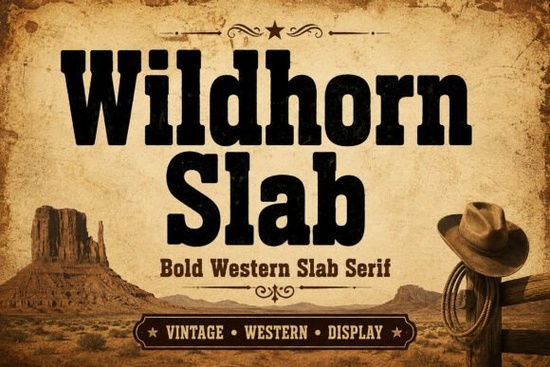
If you’re looking for a slab serif font that feels both authentic and ready for real-world use like on a whiskey bottle, coffee bag, or rustic apparel tag Wildhorn Slab Font is worth your attention. It’s not just another “vintage western” font with exaggerated flourishes. Instead, it’s carefully drawn with sturdy serifs, balanced weight, and consistent spacing so it holds up well at small sizes on packaging and reads clearly even in print.
What kind of projects does Wildhorn Slab work best for?
This font shines where character meets clarity. Think: craft brewery labels, small-batch coffee branding, handmade soap tags, vintage-style posters, or logotypes for local shops with a frontier or heritage vibe. Because it’s built as a true slab serif not a distressed novelty it works across digital and physical media without needing extra effects or overlays.
Unlike some woodtype-inspired fonts that sacrifice legibility for texture, Wildhorn Slab keeps letterforms open and distinct. The uppercase “G”, “R”, and “a”, for example, avoid tight counters or ambiguous shapes making it easier to pair with simpler sans or script fonts in multi-font layouts.
How does it compare to other slab serifs on Creative Fabrica?
Slab serif fonts vary widely in tone and function. Some lean modern and minimalist; others go full retro with ink traps or uneven stroke contrast. Wildhorn Slab sits confidently in the middle: bold enough for signage, refined enough for book covers. If you’ve used fonts like Rockwell or Courier in the past but want something with more personality and less corporate stiffness you’ll likely appreciate its grounded, no-nonsense presence.
For designers who prefer cleaner lines but still want that warm, analog feel, fonts like Simple Font offer a lighter alternative. But if your project calls for weight, authority, and a subtle nod to 19th-century American typography, Wildhorn Slab brings more visual heft without tipping into cartoonish territory.
Is it easy to use for non-designers?
That said, it’s worth testing how it pairs with your body text. A friendly sans like Montserrat or a relaxed serif like Merriweather often balances Wildhorn Slab’s strength without competing. Avoid pairing it with overly decorative scripts unless you’re going for intentional contrast (e.g., a headline + handwritten subline on a festival poster).
Where do people actually use this font?
- Small-batch beverage labels especially whiskey, bourbon, or cold brew brands wanting honest, unpretentious typography
- Apparel and merch screen-printed tees, denim patches, or embroidered caps where boldness reads from a distance
- Local business signage cafes, barber shops, or hardware stores leaning into regional identity
- Digital assets Instagram story banners, Etsy shop headers, or printable wall art with a rustic theme
One thing users consistently note: Wildhorn Slab doesn’t need much tweaking. You won’t find yourself adding outlines, shadows, or texture overlays to “age” it the design already carries that sense of time-worn integrity. That saves time during production, especially when preparing files for print-on-demand services like Printful or Gelato.
If those check out, you’ll likely find it becomes a reliable go-to not just for western themes, but anywhere you want typography that feels earned, not applied.